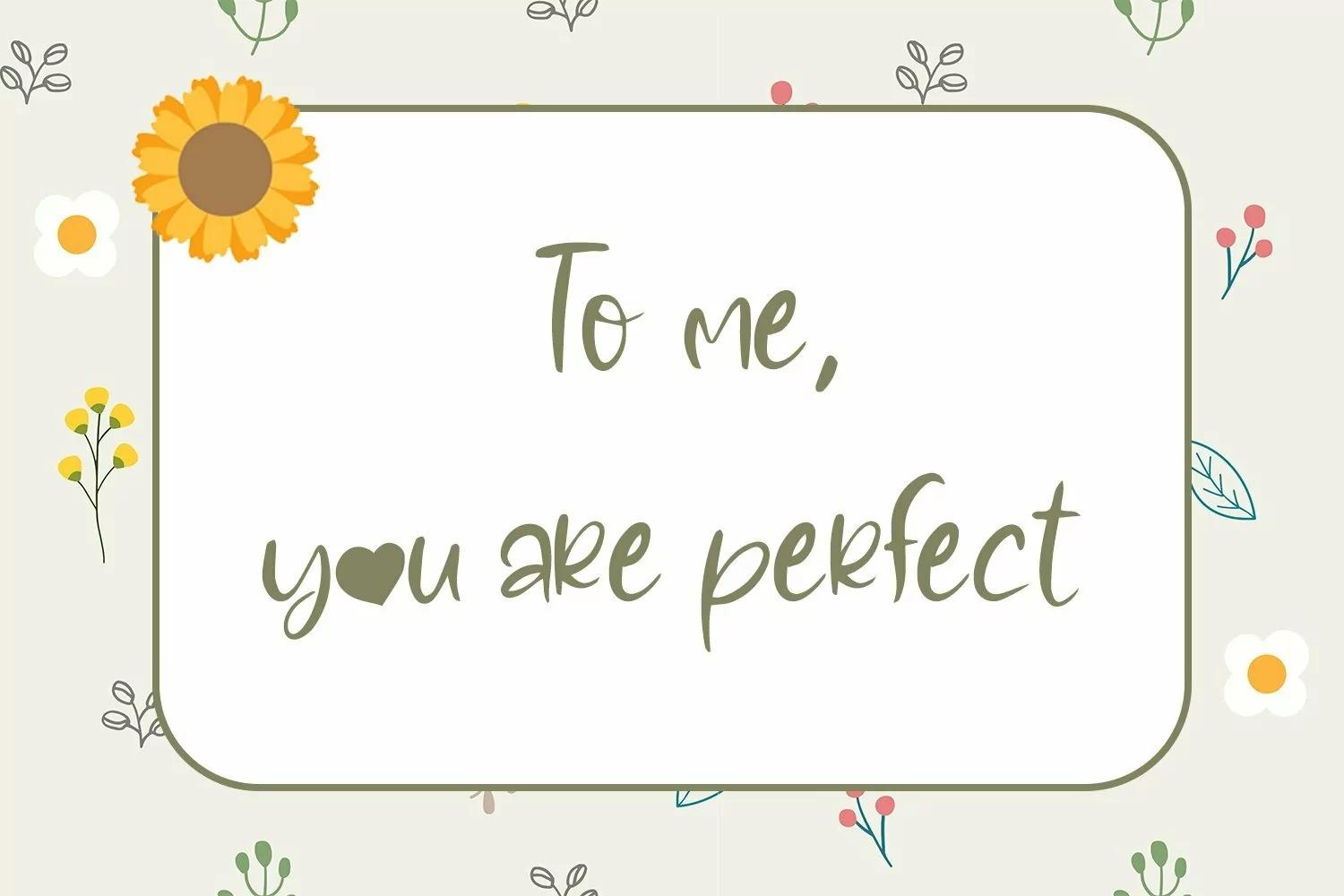
Love Bretta - Cute Love Handletter Font that contain lowercase, uppercase, symbol, and also support multi language. There’s a lot ligatures in this font. This Font also comes with ligatures, alternates and many more. this font suitable for fashion, branding, catalog and other design what you want.